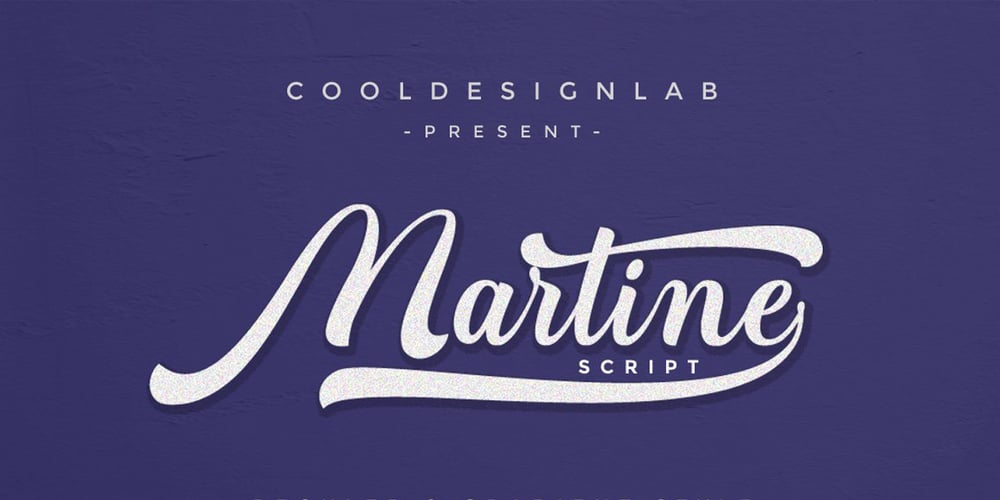
Martine Script Font Family was designed by Kurniadi Saputra and published by Cooldesignlab. Martine Script contains 1 styles and family package options. We are proud to present Martine Script. This script is very cool to use in your everyday design. You can see from the scratches that give a realistic and modern style. The font looks sweet and full of the best characters. You can use this font in your various design products such as invitations, mockups, embosses, branding cards and more.Martine includes a complete set of large international letters, numbers, punctuation marks and ligatures. All lowercase letters include the beginning and end of raids. Also, follow multilingual symbols. Scripts are coded with PUA Unicode, which allows full access to all additional characters without special design software.Mac users can use the Font Book, and Windows users can use Character Maps to view and copy additional characters to be included in your favorite text editor / application.